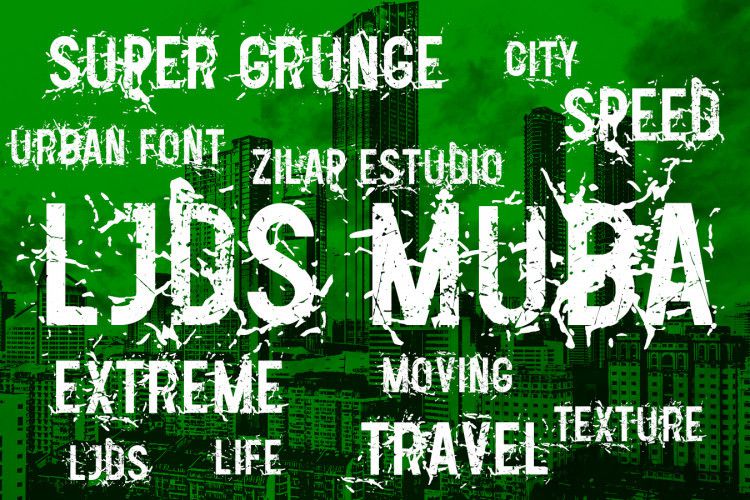
LJDS Zilap MUBA Font
Based on Zilap Font Team LJDS Zilap MUBA is an urban version of LJDS its acronym MU-sic urBAn are those who form the acronym for the fountain because music, and urban culture were the central idea of this style.